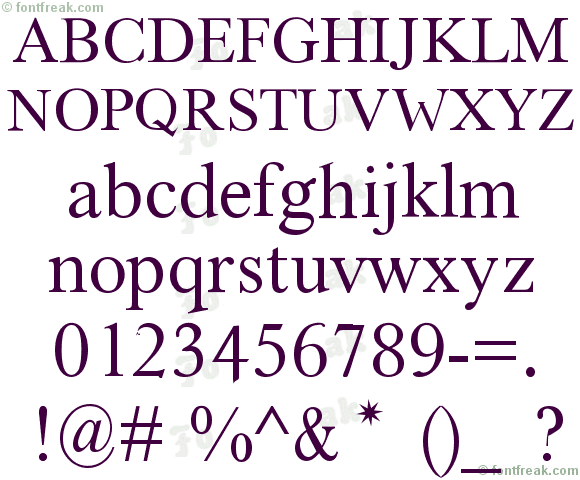
Houndtime
Houndtime by The Font Farm is a distinctive serif font that captures a blend of elegance and playfulness. Released in 2001, this freeware typeface showcases a medium stroke weight with subtle variations, providing a pleasing contrast that enhances its readability. The letterforms feature a classic serif design with slightly rounded edges, giving it a warm and inviting appearance. The spacing between characters is well-balanced, making Houndtime versatile for various applications while maintaining its aesthetic charm.
This font is particularly suited for projects that require a touch of sophistication combined with a lighthearted feel. It works exceptionally well for wedding invitations, where its graceful curves can enhance the romantic theme. Additionally, Houndtime is a fantastic choice for children’s book titles, adding a whimsical flair that appeals to younger audiences. Restaurant menus can also benefit from this font, creating an inviting atmosphere that encourages diners to explore the offerings. Furthermore, its unique character makes it ideal for branding small businesses looking to establish a memorable identity.
What sets Houndtime apart is its ability to strike a balance between classic elegance and contemporary charm. Whether used in print or digital formats, this font stands out with its unique personality, making it a valuable addition to any designer's toolkit. Its distinctive style and versatility ensure that it will leave a lasting impression on viewers.